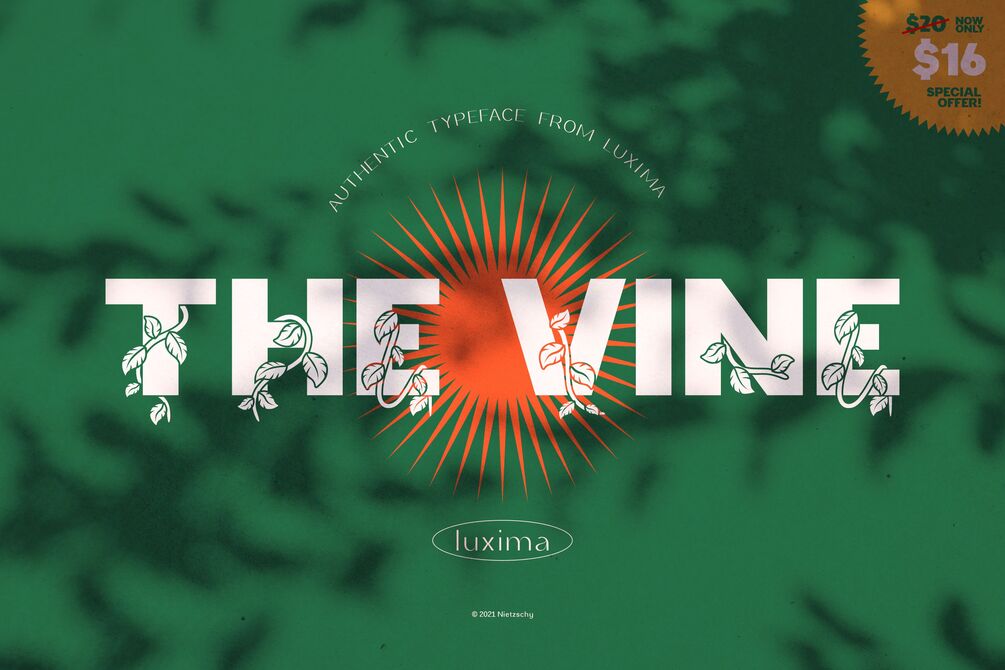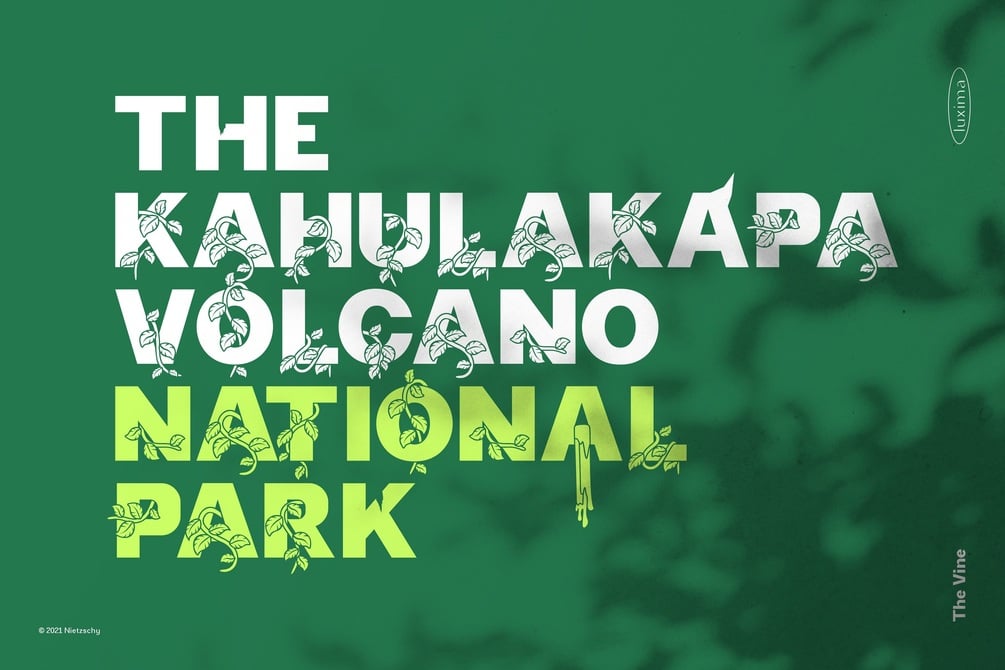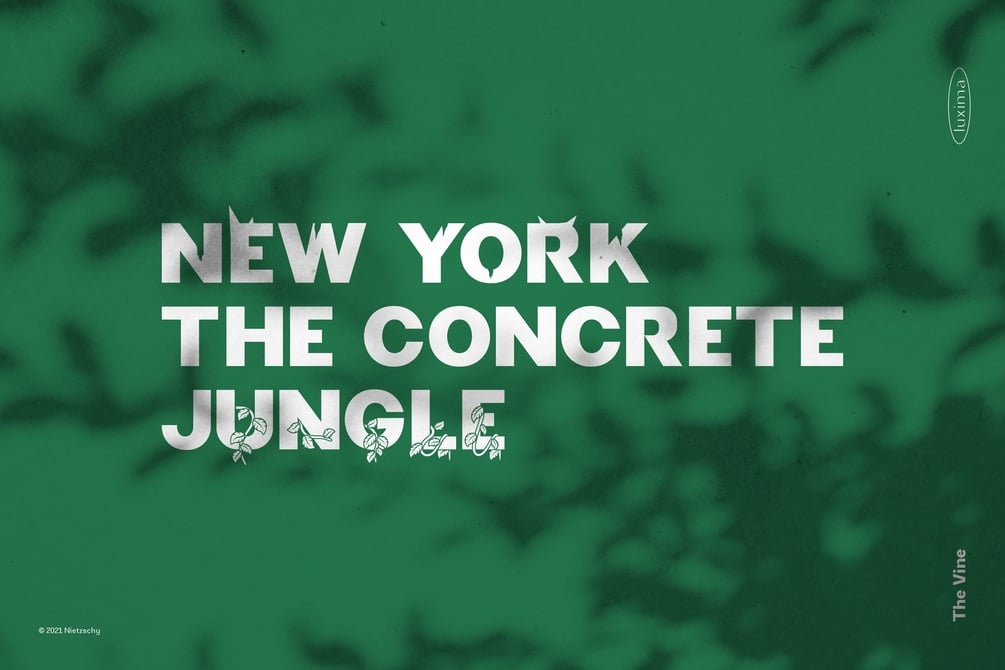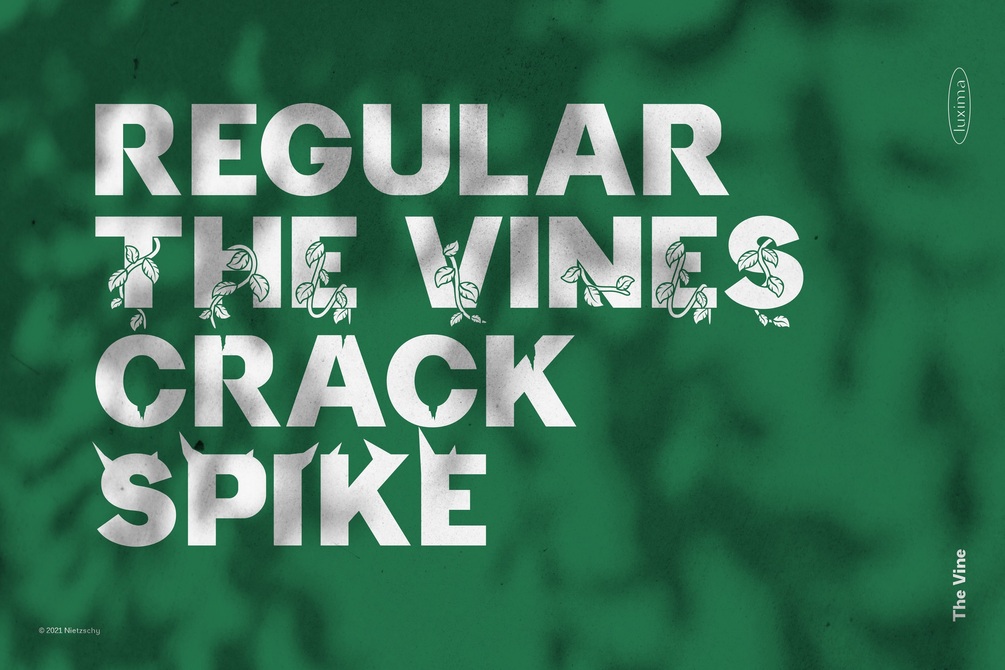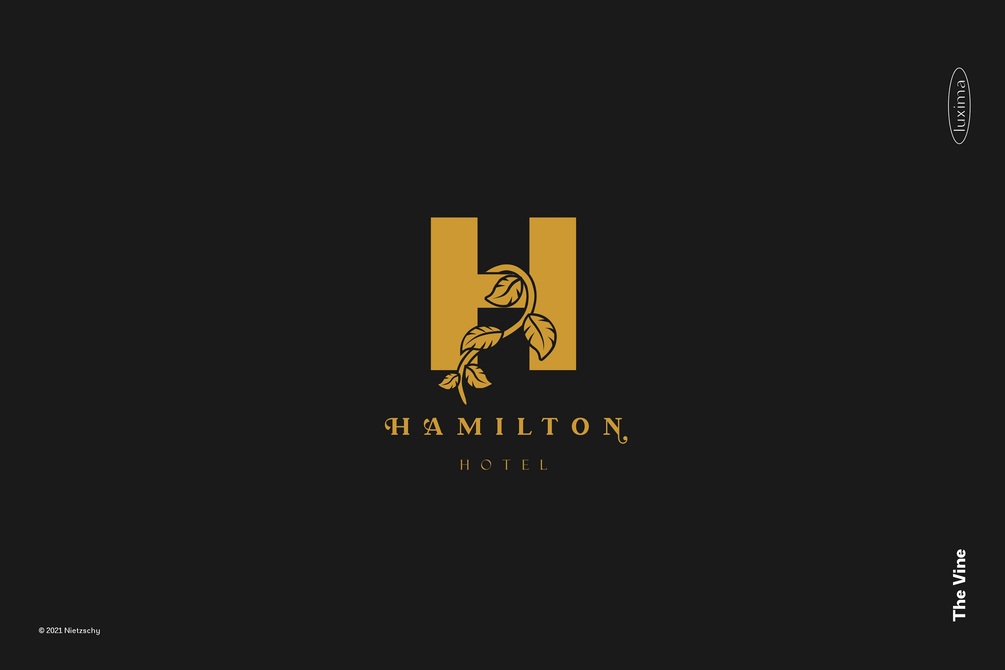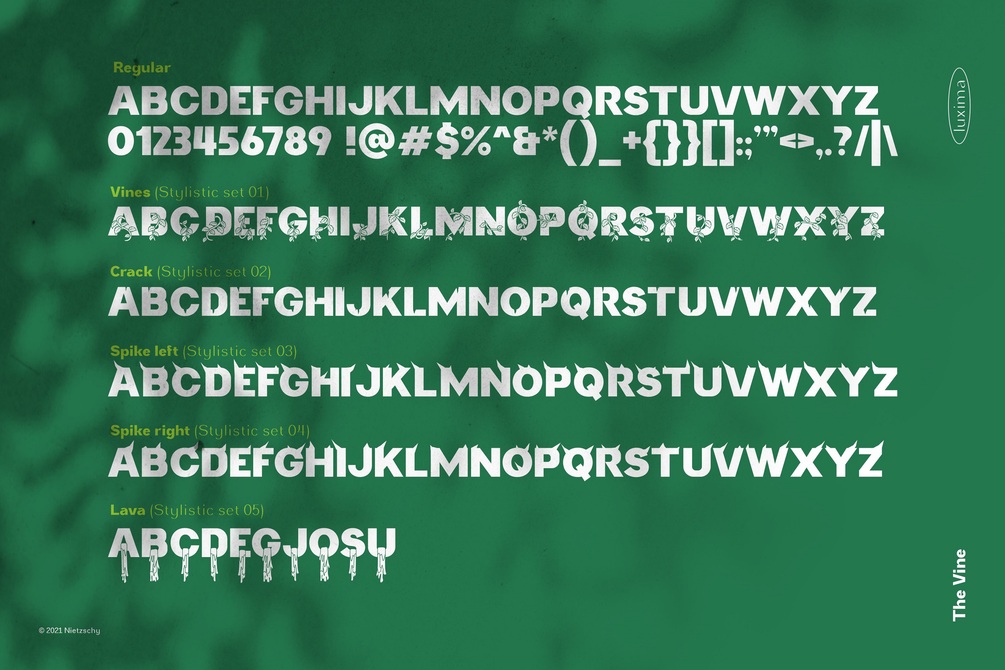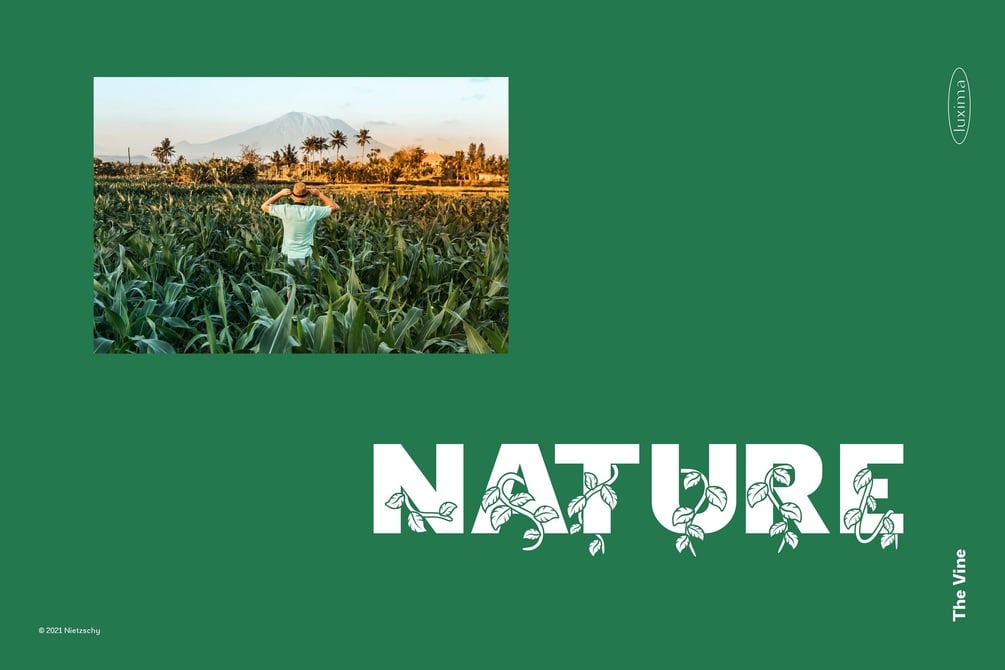
THE VINE DISPLAY Typeface
The Vine, a modern sans-serif font with unique variation. From this product you will get one typeface with 5 stylistic set.
The Vine Full version consists of uppercase, digits, punctuation marks, and 5 stylistic sets/character alternatives (all Uppercase). Total 254 characters.
You will get unique all caps typeface with 5 stylistic sets/character alternatives